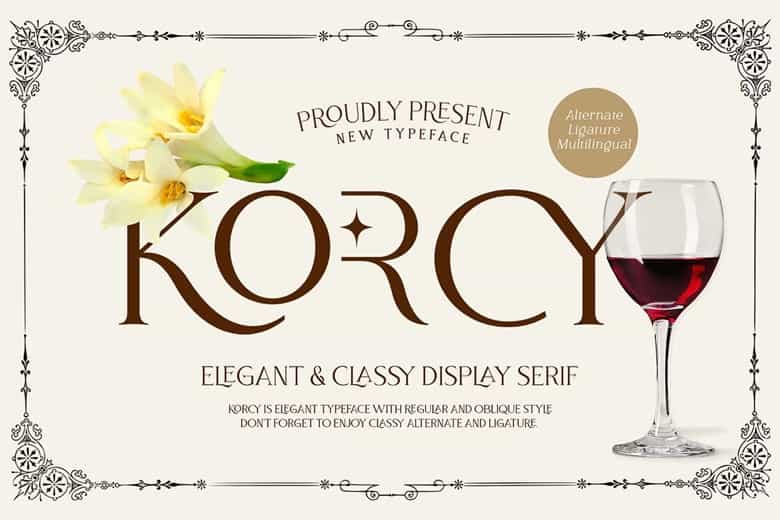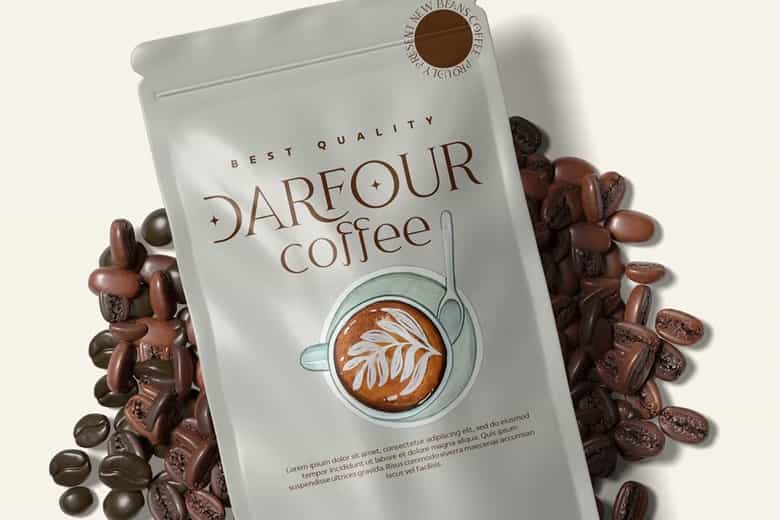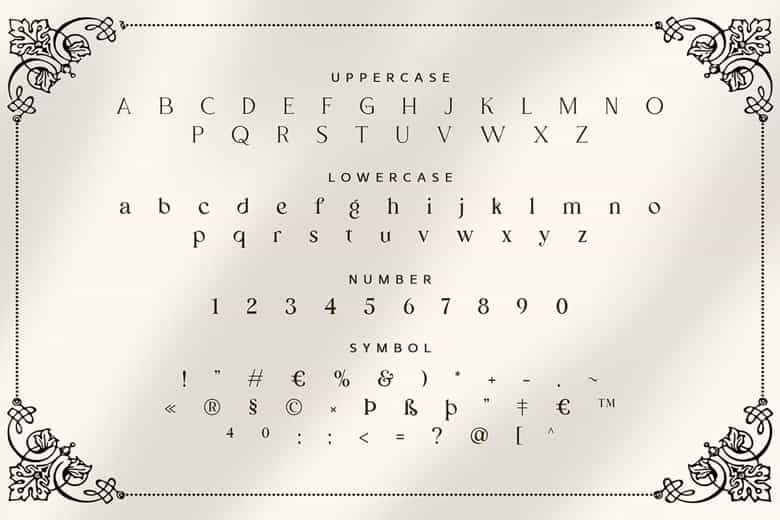
Korcy is an elegant and classy display serif font with sharp serifs that contains two styles: Regular & oblique. It also features many standard ligatures and also titling fonts. It has a very high level of residency in languages of the Latin alphabet.